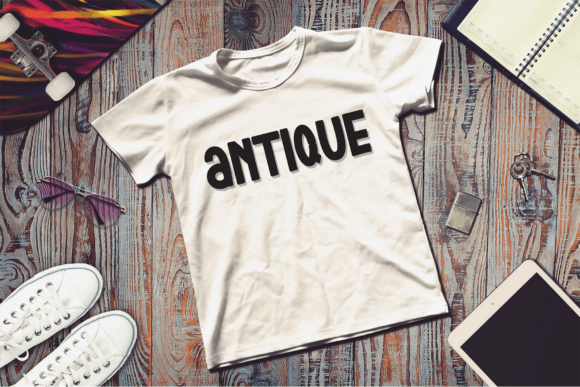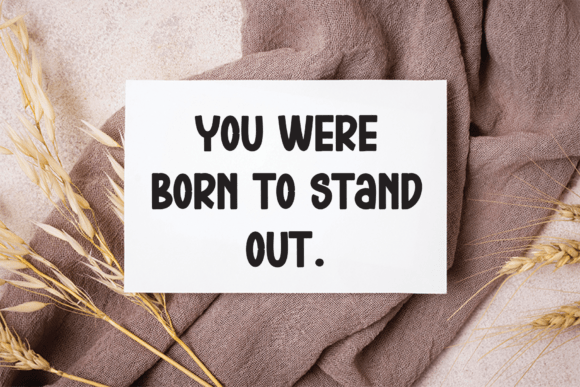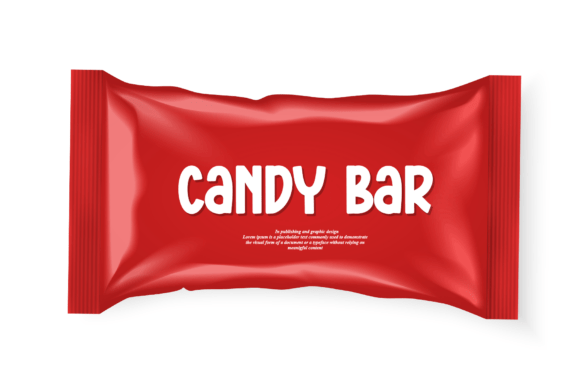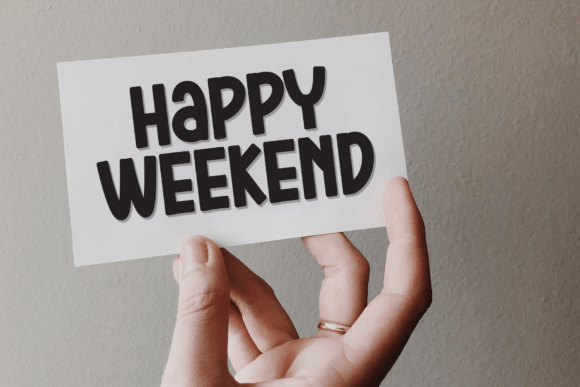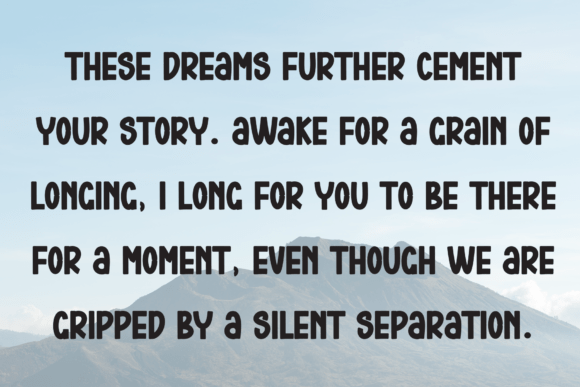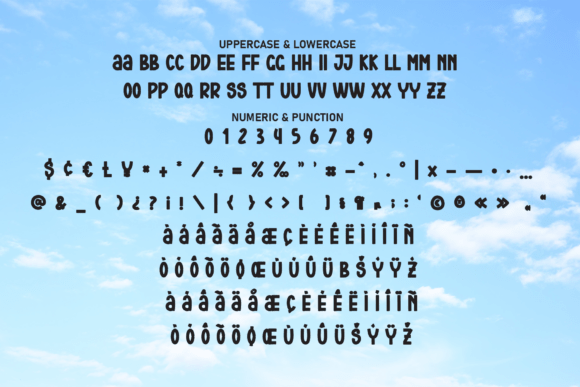
Introducing Bluesky Font: Elevate Your Designs with Stunning Typography
Are you a designer, crafter, or creative enthusiast looking for a unique and stylish font to take your projects to the next level? Look no further than Bluesky Font, a specially crafted typeface designed to provide an extraordinary experience. With its latest style letters, this font is perfect for a wide range of applications, from wall displays and wedding invitations to social media post logos, advertisements, product packaging, and more.
Unleash Your Creativity with Bluesky Font
Bluesky Font is a versatile and creative solution for anyone looking to add a personal touch to their designs. Whether you’re a seasoned designer or a DIY crafter, this font is designed to help you create stunning visual content that stands out from the crowd. With its unique and tasteful handwriting style, Bluesky Font is ideal for:
- Wall displays and signage
- Social media post logos and graphics
- Advertisements and marketing materials
- Product packaging and design
- Labels and branding
- Photography and watermarks
- Stationery and letterheads
What You’ll Get with Bluesky Font
Why Choose Bluesky Font?
So why choose Bluesky Font over other typefaces on the market? Here are just a few reasons why designers and crafters love this font:
- Unique and stylish design: Bluesky Font features a one-of-a-kind handwriting style that’s sure to turn heads.
- Versatility: This font can be used for a wide range of projects, from digital designs to print materials.
Tips for Using Bluesky Font
To get the most out of Bluesky Font, here are a few tips to keep in mind:
- Experiment with different sizes and colors: Bluesky Font looks great in a variety of sizes and colors, so don’t be afraid to get creative.
- Pair with other fonts: Try pairing Bluesky Font with other fonts to create a unique and eye-catching design.
- Use for digital and print projects: Bluesky Font is perfect for both digital designs and print materials, so feel free to use it across multiple platforms.